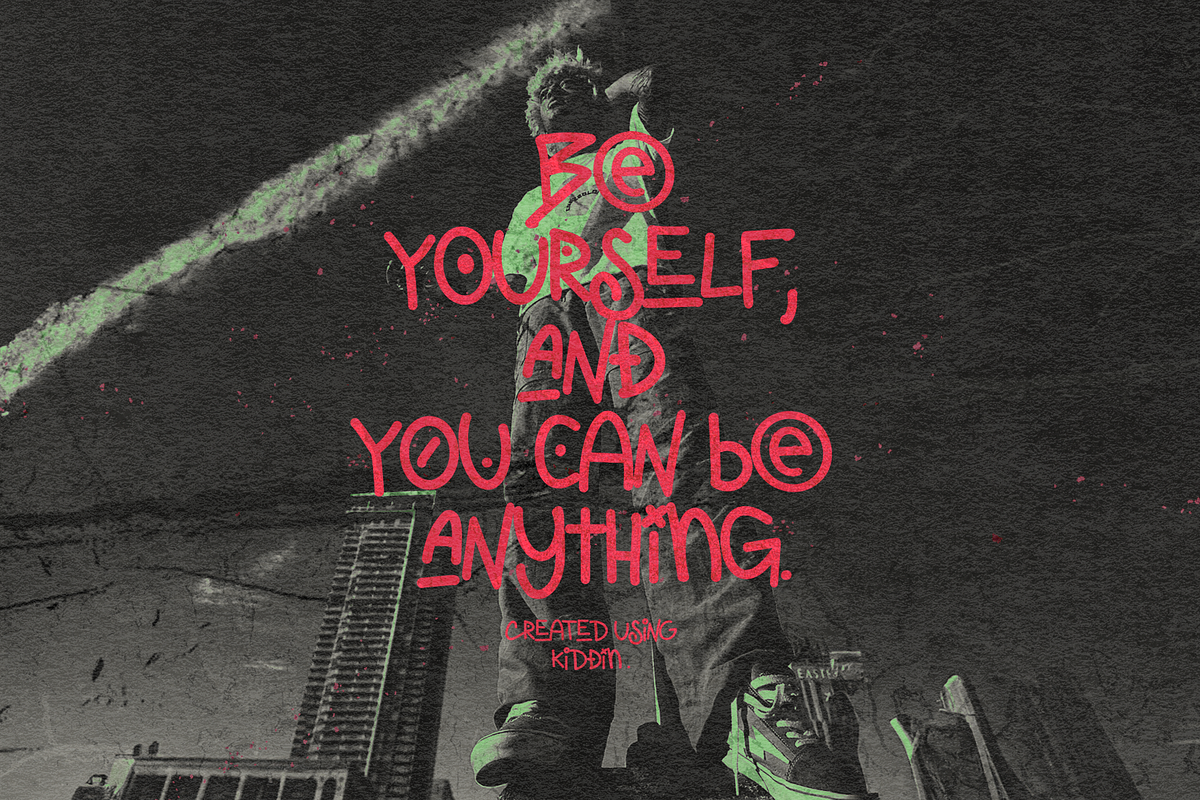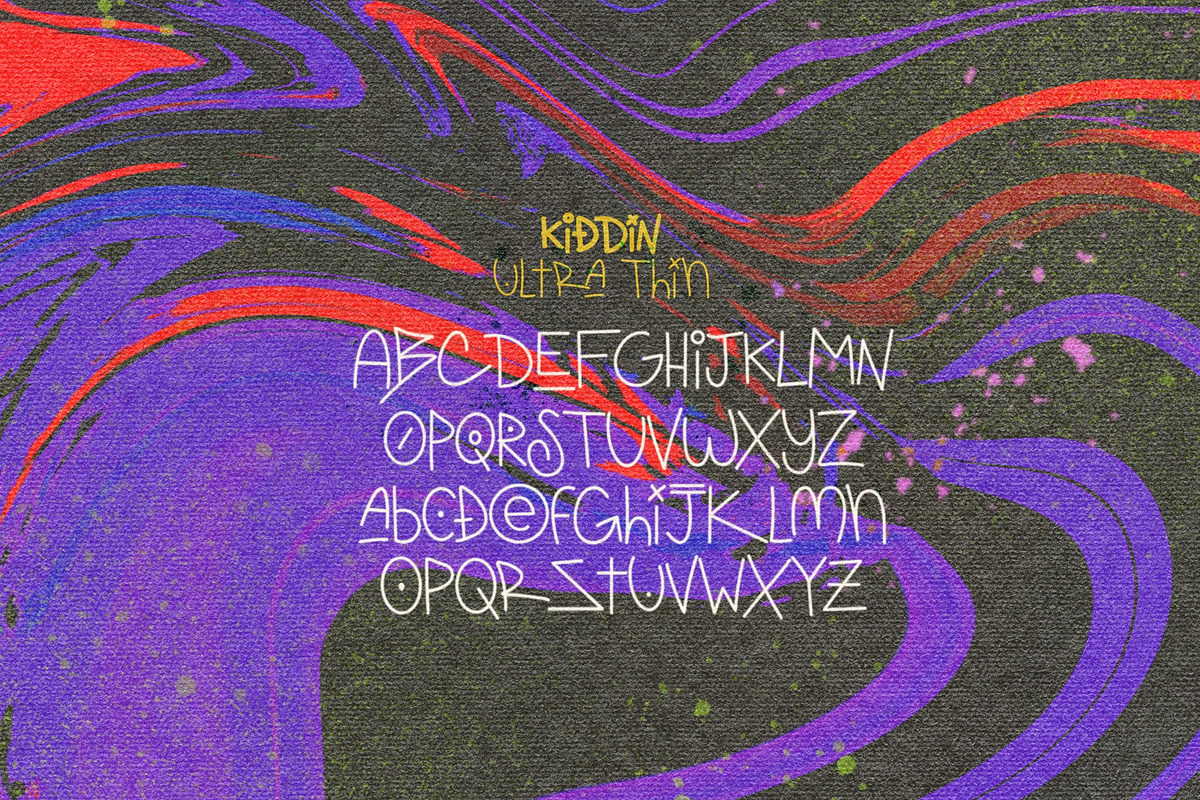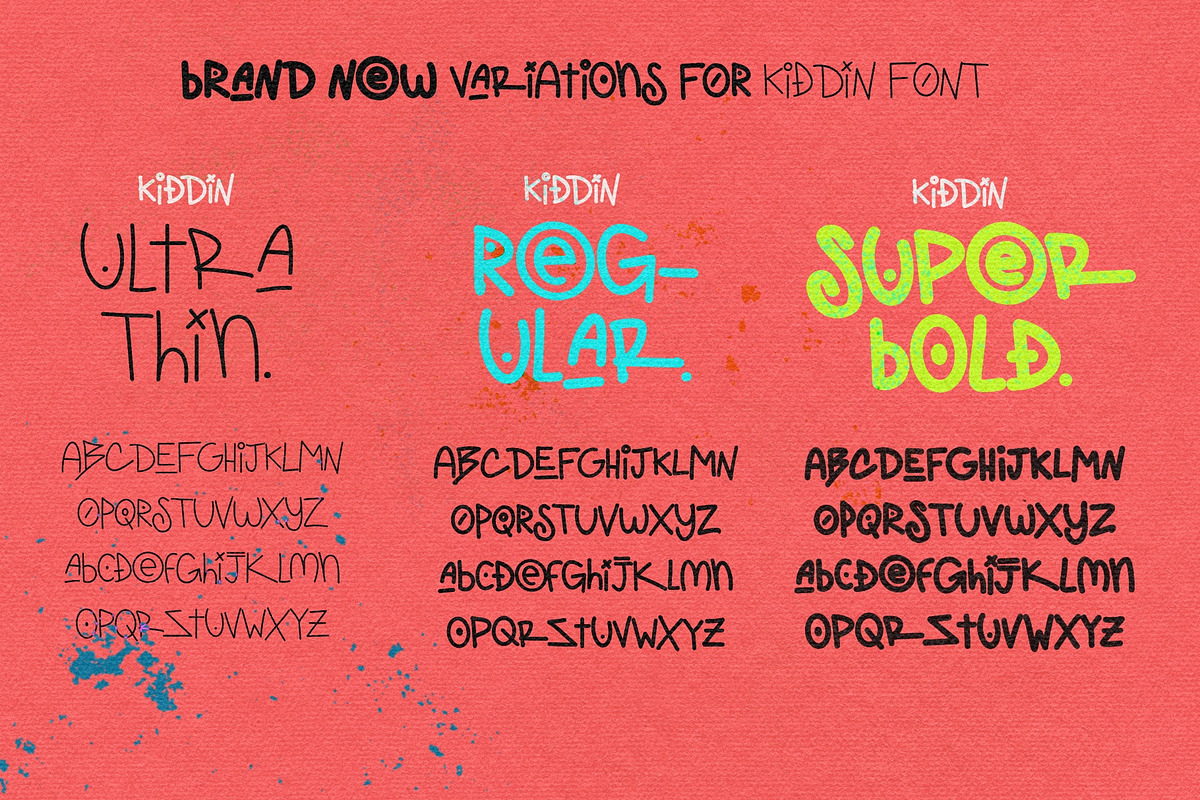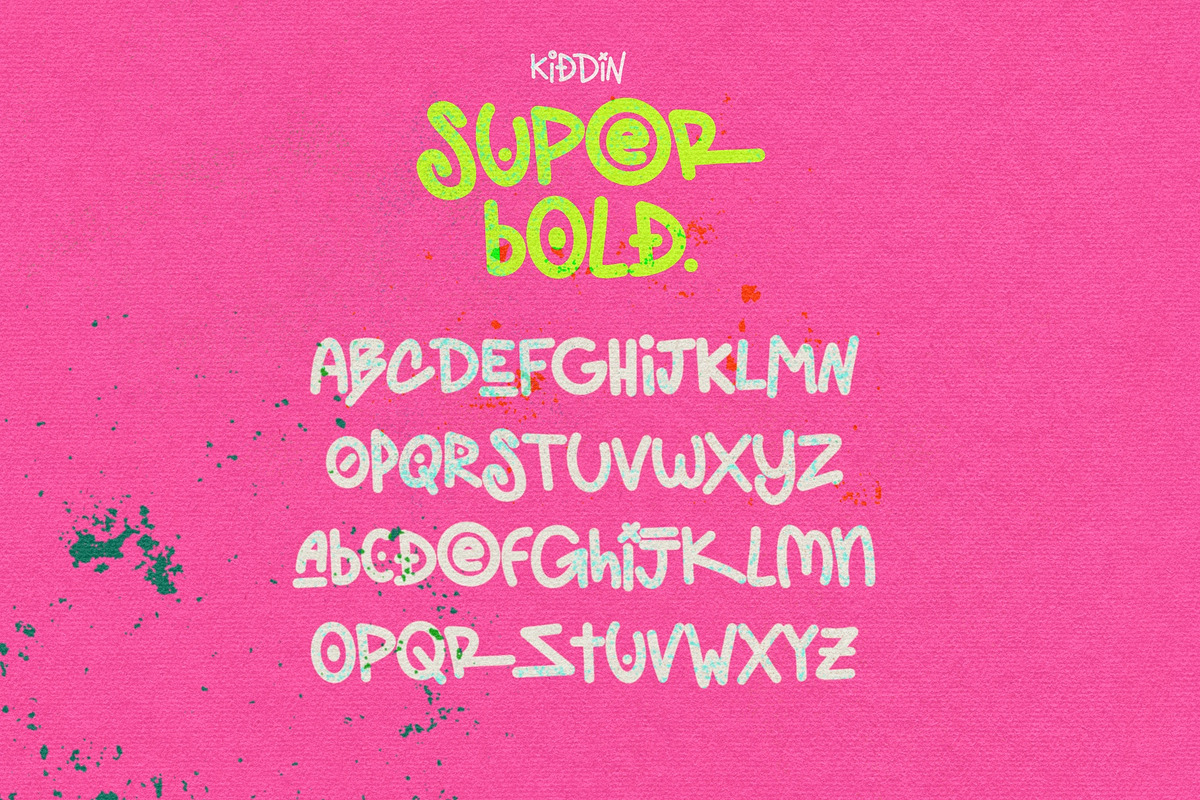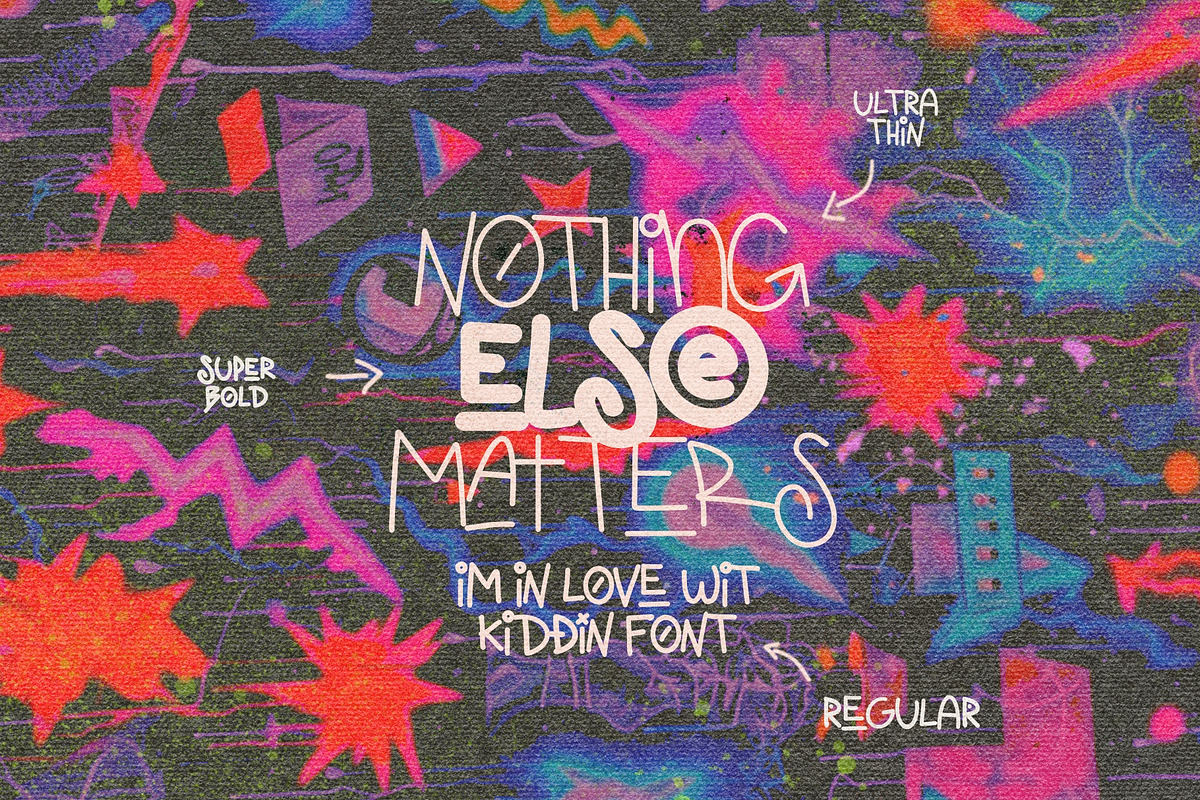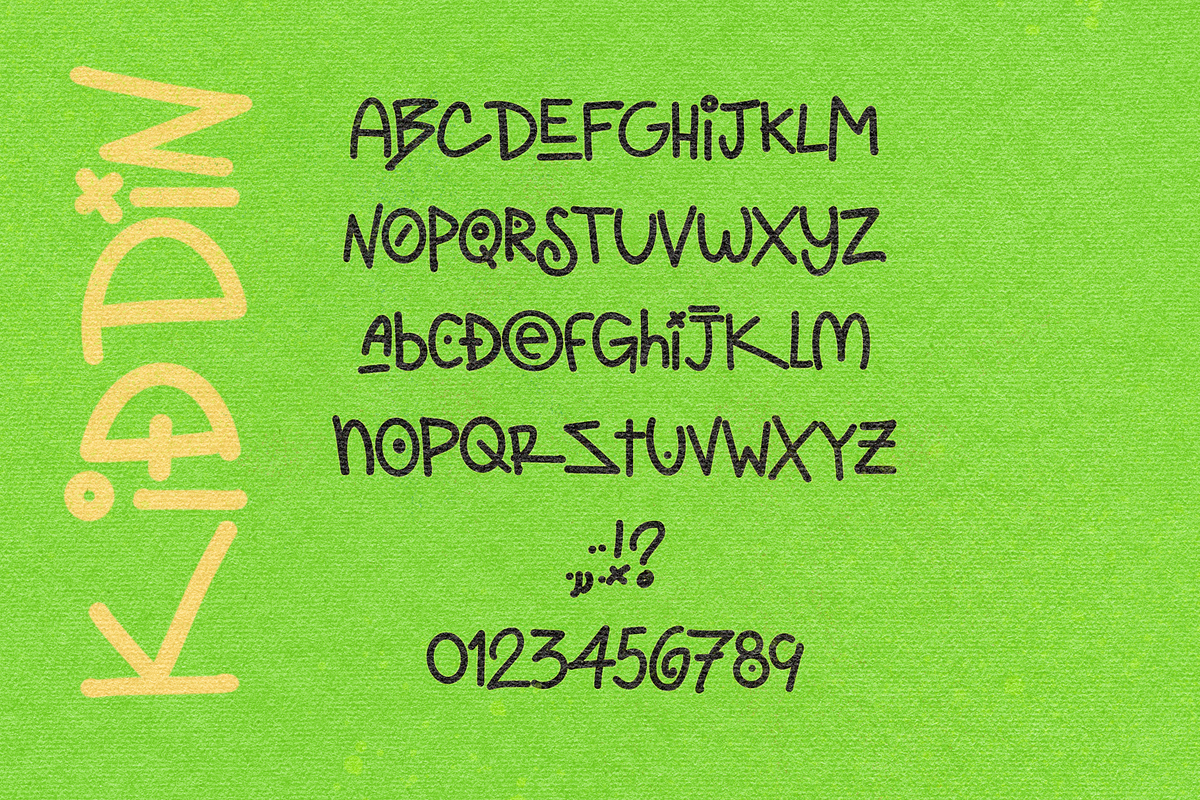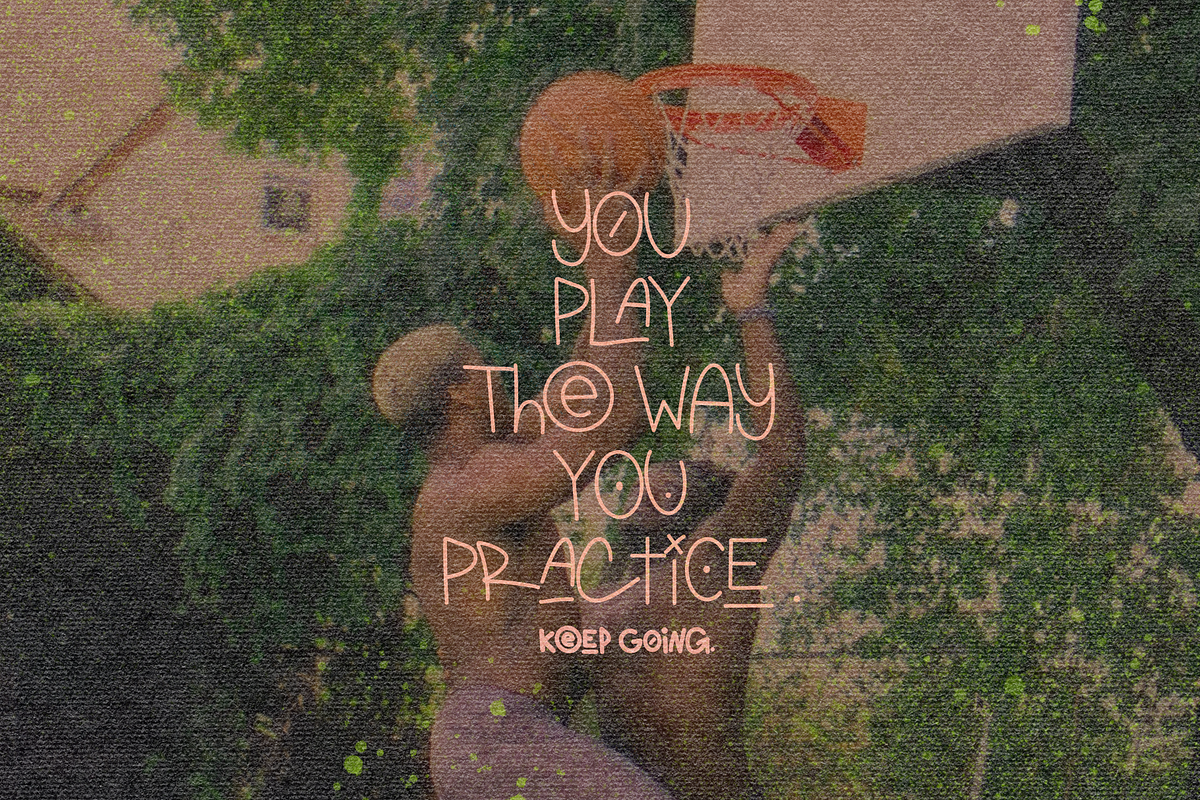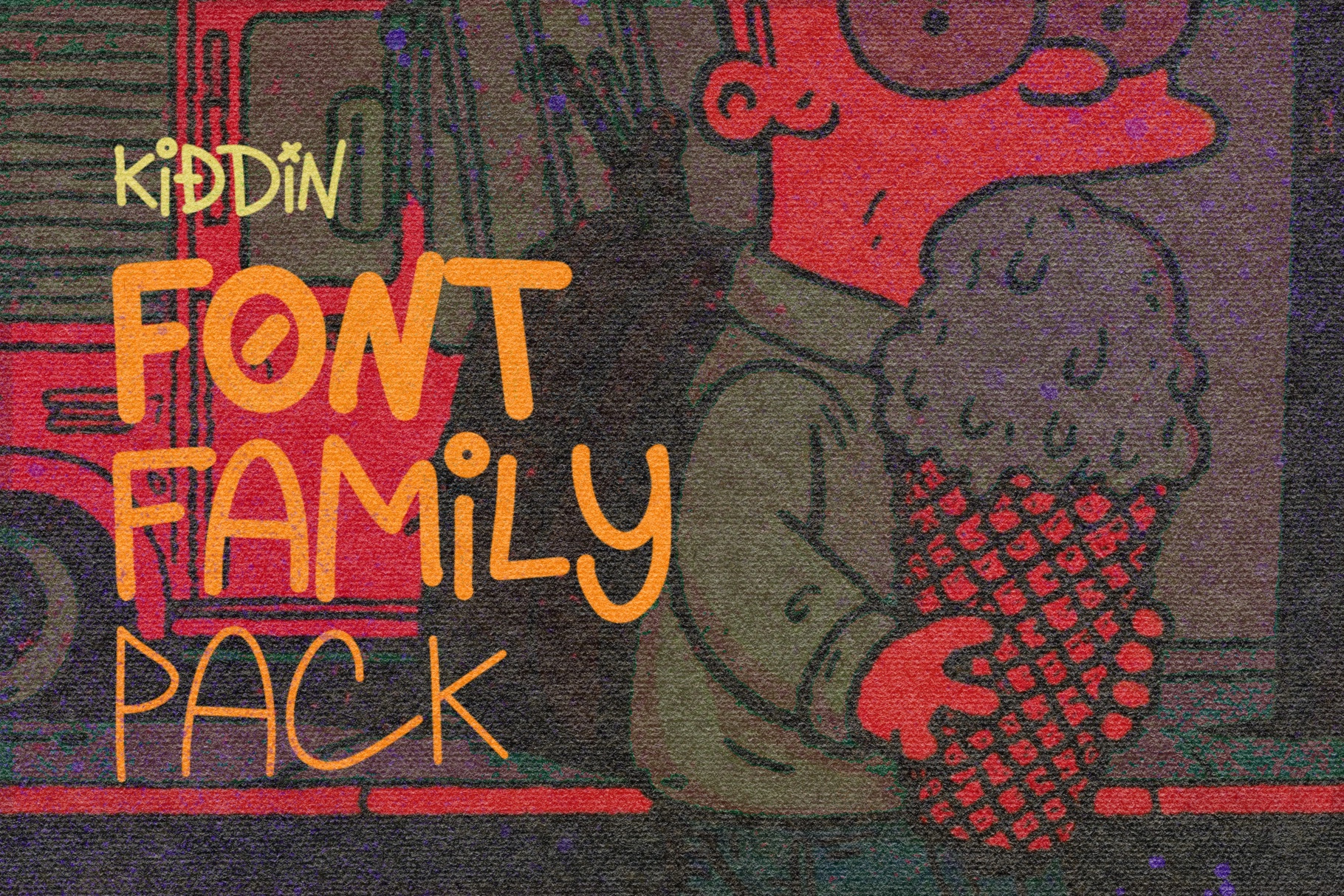
KIDDIN FONT FAMILY
"Im just kidding" FAMILY VERSION!!
try this cool font family forever in your designs.
the COMIC SANS KILLER is here
try mixing uppercase and lowercase characters to find the perfect match, combine this family with BAD LOVER FONT
all special characters included on this family